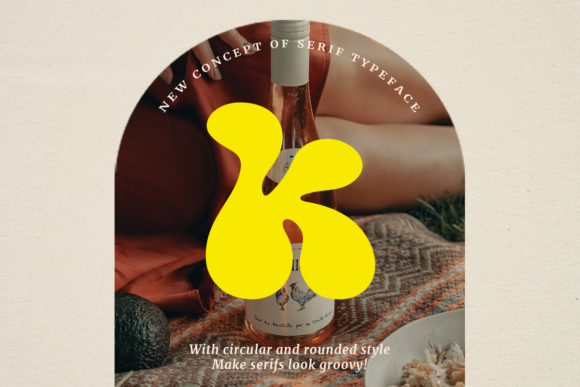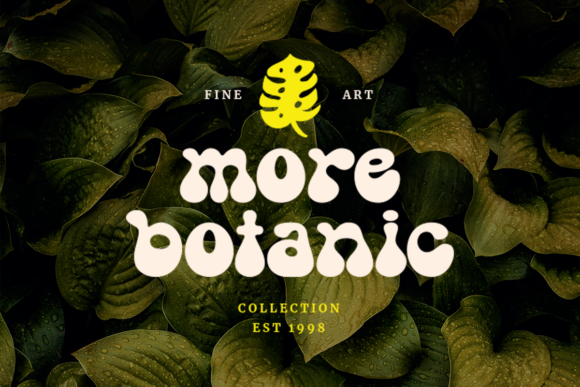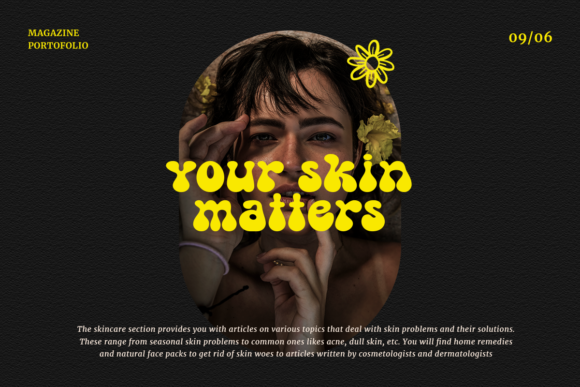
Introduction to Gunydrops Font
Do you remember the thrill of creating your first DIY project as a kid? Maybe it was a handmade card for your mom’s birthday or a colorful poster for your room. Whatever it was, the joy of bringing your imagination to life is something we never forget. For designers, finding the right font can be the key to unlocking that same creative spark in their projects.
That’s where the Gunydrops Font comes in – a free, high-quality design resource that’s perfect for adding a playful touch to any creative project. With its cool, wavy, and bubbly style, this font is an instant mood-booster, guaranteed to transport you back to a time when life was simpler and more carefree.
Whether you’re working on a children’s activity, a school project, or just need a fun font to spice up your next design, Gunydrops Font is a valuable addition to your design arsenal. And with its transparent background, you can easily integrate it into any project without worrying about background distractions. So why not give it a try and see what creative magic you can unleash with this fantastic font?
Key Features of Gunydrops Font
- High-quality design resource suitable for creative projects, including logos, graphics, and more.
- Gunydrops Font offers a unique, modern aesthetic with a transparent background, ideal for overlaying on images or videos.
- Includes a range of glyphs and characters, making it a versatile choice for designers and artists.
- Gunydrops Font is designed to be easily scalable, making it perfect for use in digital and print designs.
Honest Review: Gunydrops Font
I recently stumbled upon the Gunydrops Font while searching for high-quality design resources. As a designer, I’m always on the lookout for unique and creative fonts to elevate my projects. After experimenting with Gunydrops, I wanted to share my honest review.
- ✨ Unique and quirky design that adds a touch of whimsy to any project
- ✨ Transparent background option allows for easy customization and layering
- ⚠️ Limited character set, which may not be suitable for projects requiring a wide range of characters
- ⚠️ Some glyphs may appear distorted when scaled up or down
Overall, I’m impressed with the Gunydrops Font’s potential to add a creative twist to design projects. While it may have some limitations, its unique design and high-quality files make it a valuable resource for designers looking for something new and exciting. If you’re working on a creative project and want to add a touch of personality, Gunydrops Font is definitely worth checking out.
Tips for Getting the Most Out of Gunydrops Font
To get the most out of the Gunydrops Font, be sure to use it in combination with other high-quality design resources. Experiment with different font sizes, colors, and styles to create unique and eye-catching designs. You can also use the font with a transparent background to create stunning graphics and logos.
Common Use Cases for Gunydrops Font
The Gunydrops Font is perfect for a variety of creative projects, including graphic design, digital art, and typography. You can use the font to create logos, graphics, and documents that are sure to impress. Some common use cases for the Gunydrops Font include:
Yes, Gunydrops Font has a transparent background, making it suitable for creative projects that require a high level of design flexibility. The transparent background allows you to easily combine the font with other design elements or images.